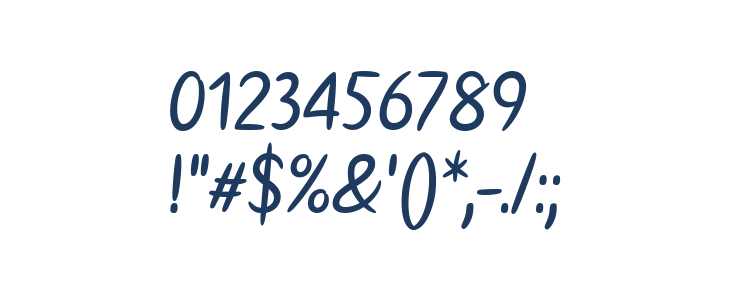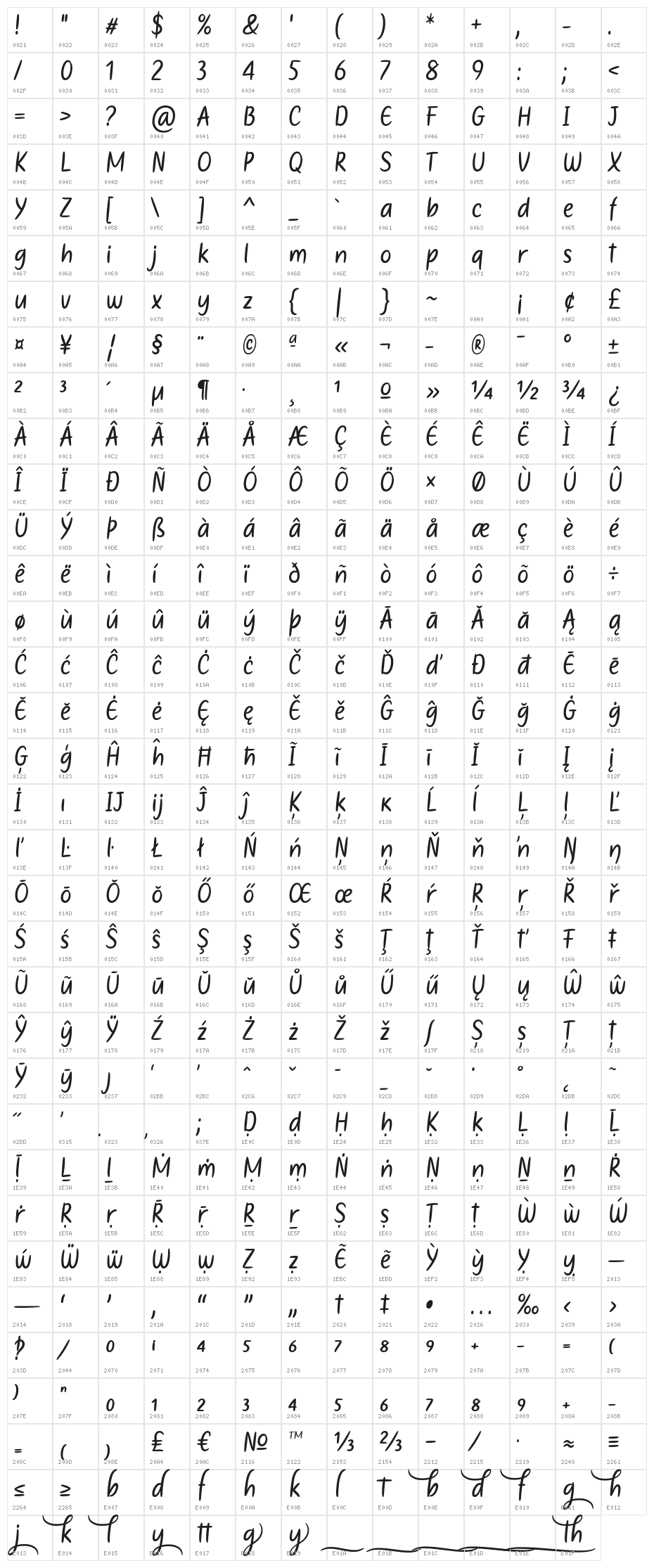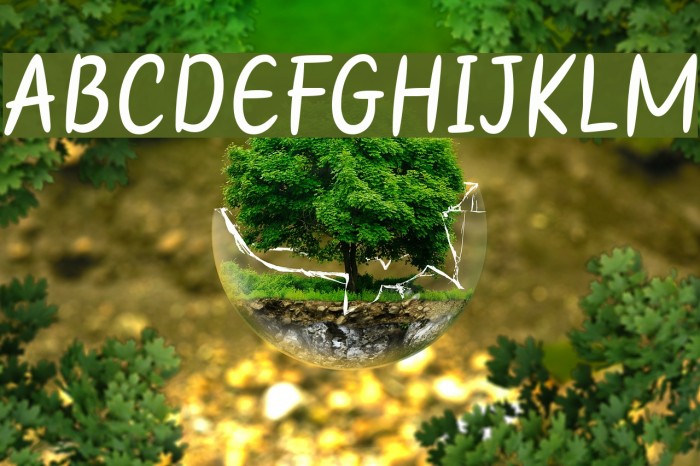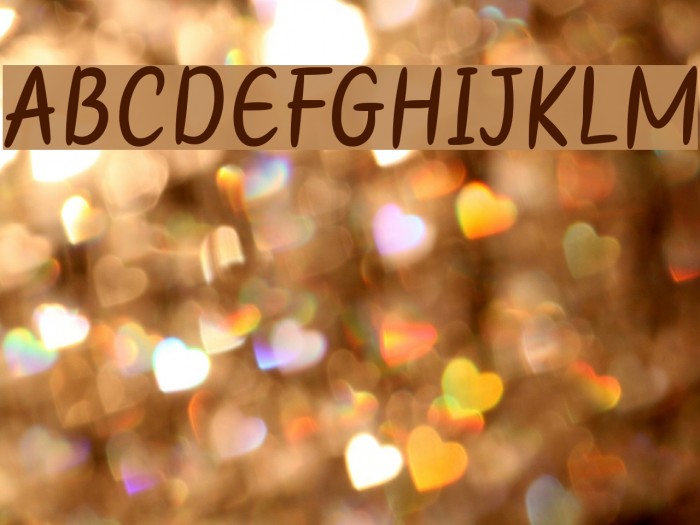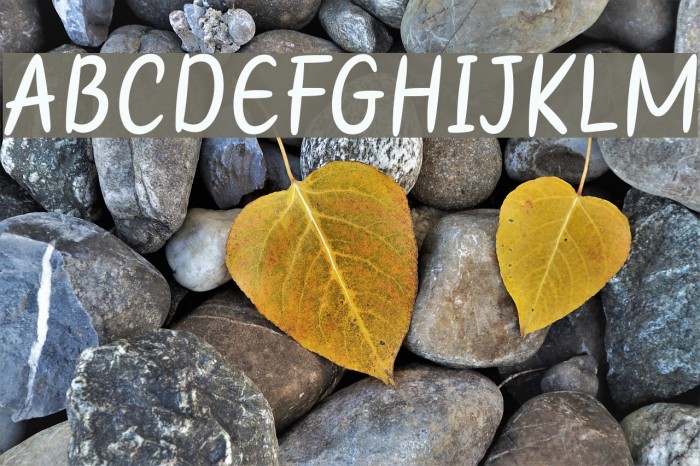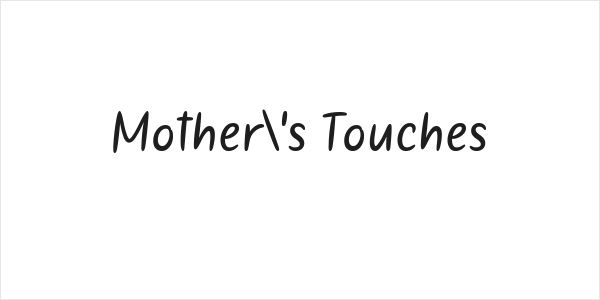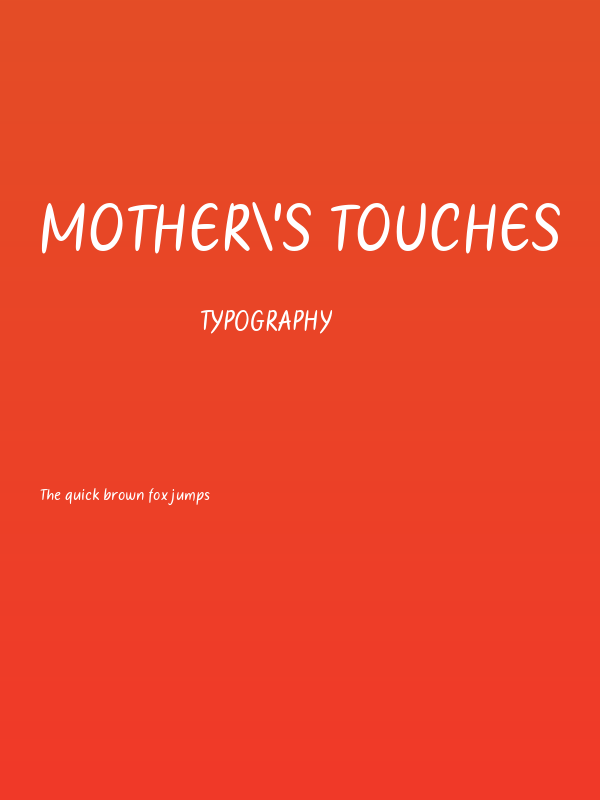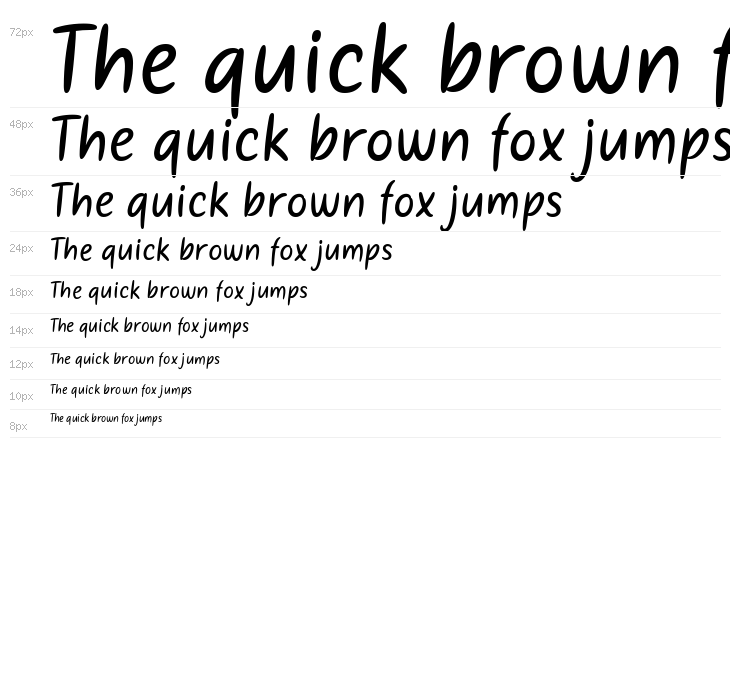
Mother's Touches Font
Mother's Touches Description
This font exudes a casual and friendly vibe with its handwritten style. The letters are slightly slanted, giving it a dynamic and lively appearance. The strokes are smooth and consistent, with rounded edges that enhance its approachable feel. The uppercase and lowercase letters maintain a uniform height, while the numbers and special characters are well-integrated, ensuring readability. This font is versatile, suitable for both personal and professional projects that require a touch of warmth and personality.
| Use Case | Headlines, Informal text, Personal projects |
| Proposed Projects | Ideal for greeting cards, personal invitations, social media graphics, and informal branding. |